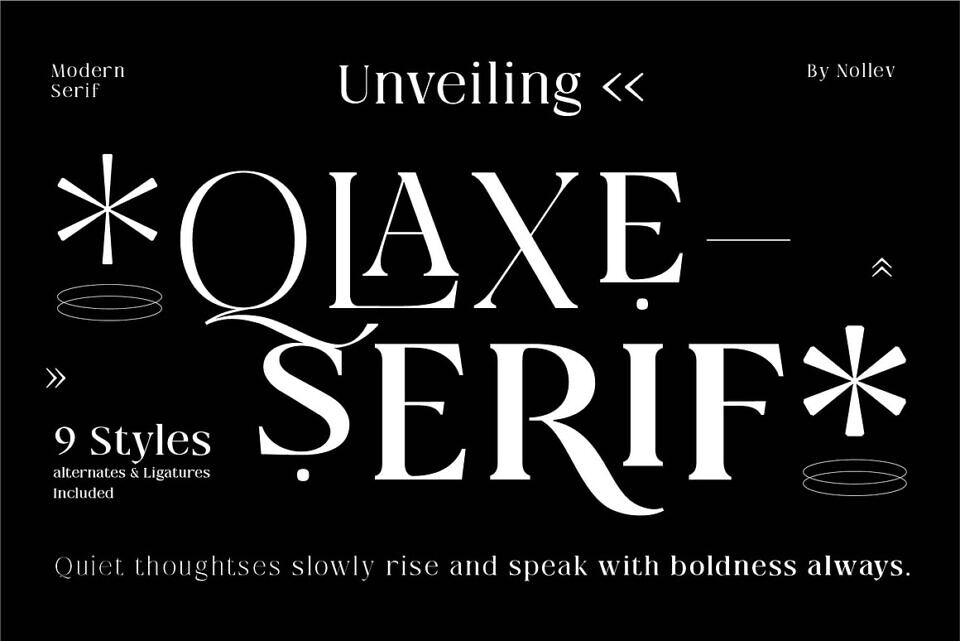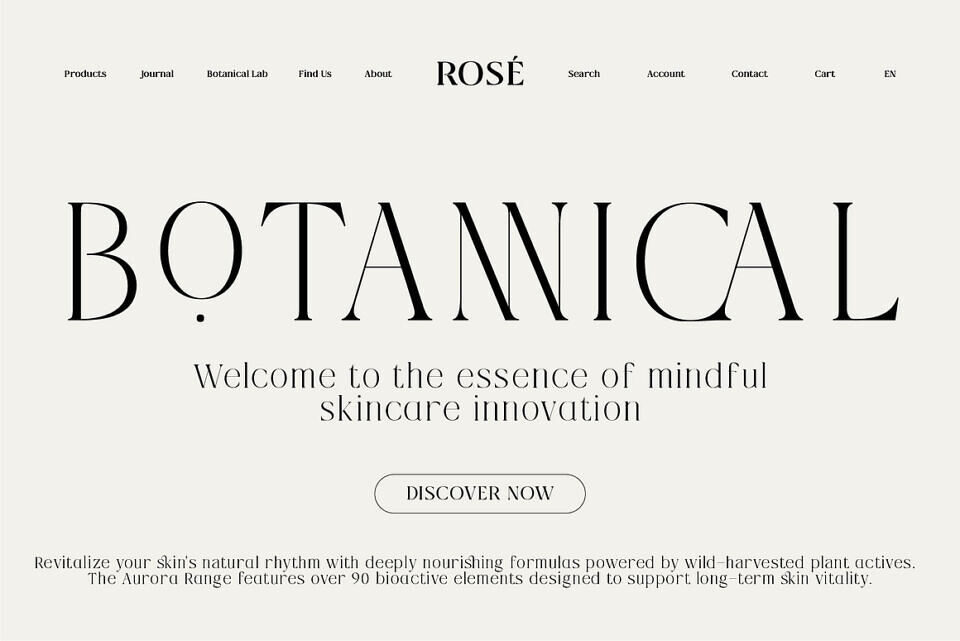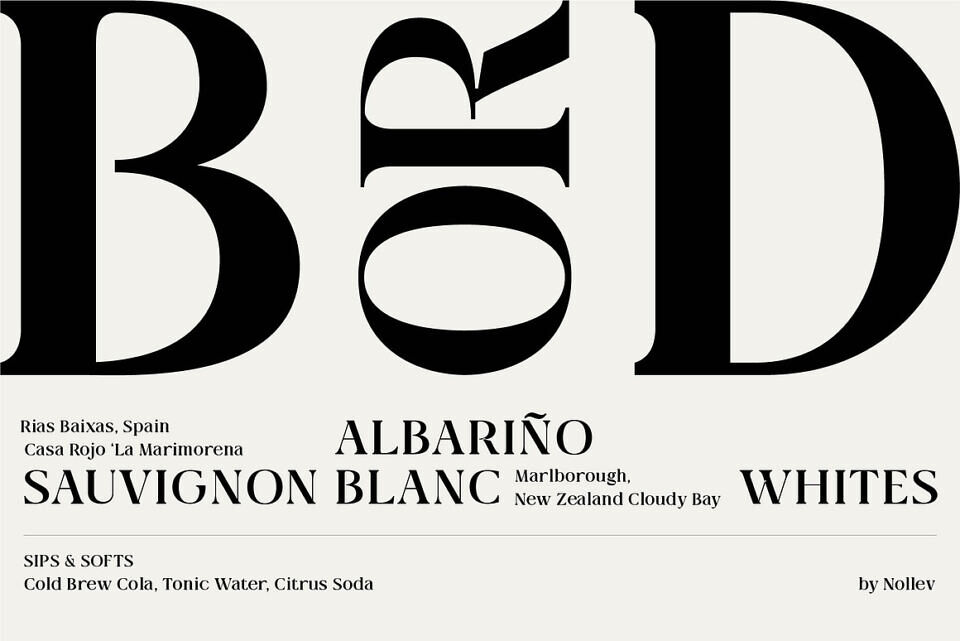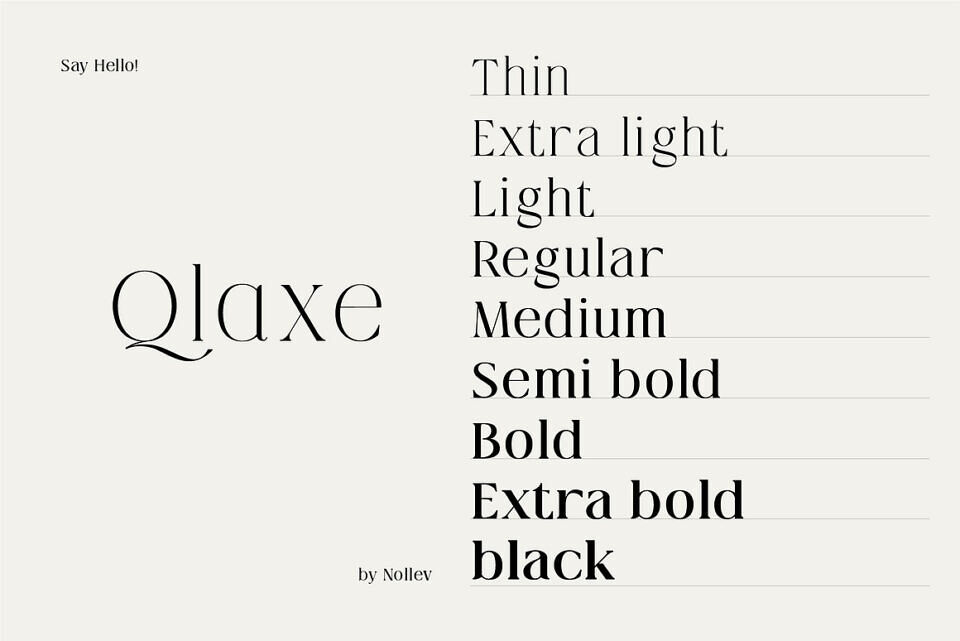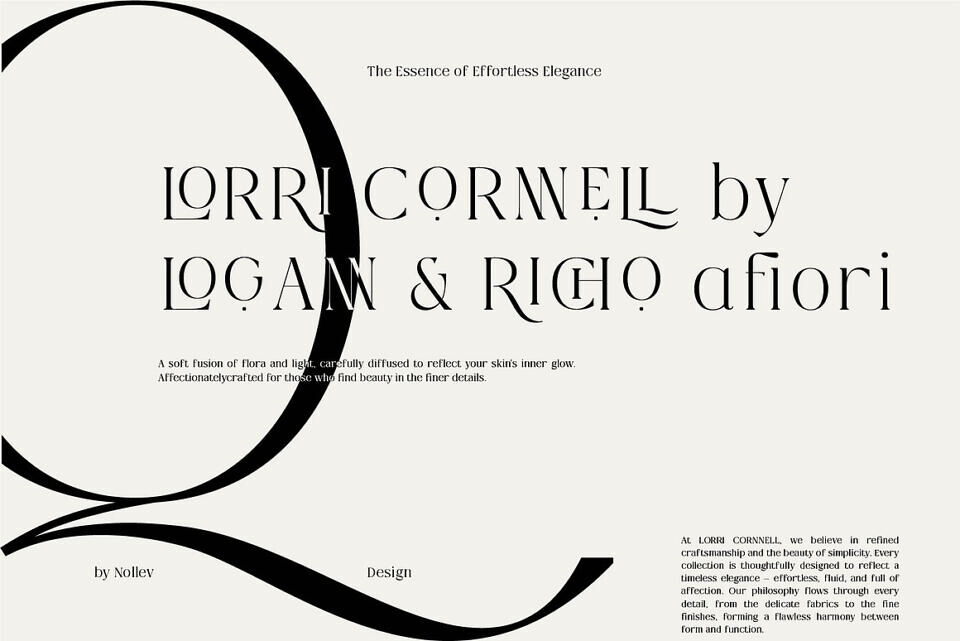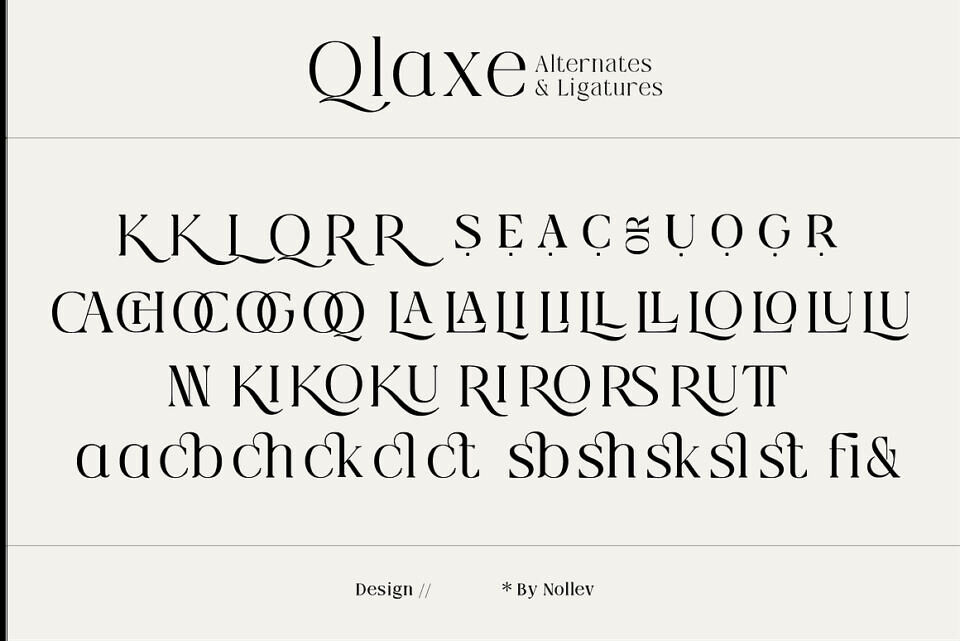
Qlaxe Serif is a classic modern serif font that combines timeless charm with refined contemporary style. With 9 elegant styles and unique ligatures, Qlaxe is perfect for sophisticated branding, editorial design, and premium packaging.